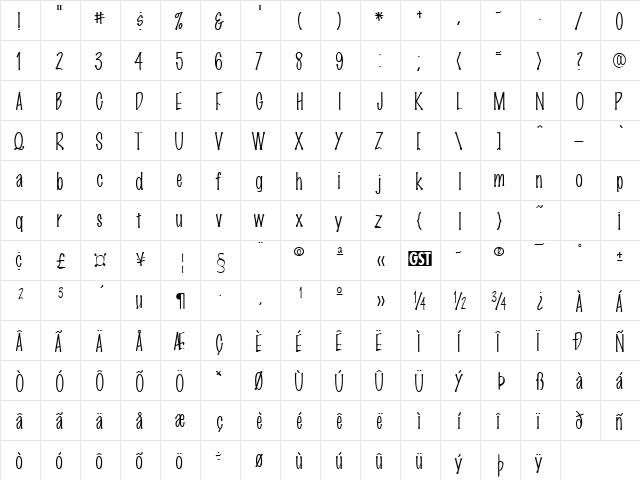
Marking Pen Thin normal
Design Context for Marking Pen Thin Typeface
Marking Pen Thin takes a measured approach to typography — its balanced proportions and neutral character make it a reliable workhorse for both digital and print work. Its slender proportions lend an understated elegance to any composition.